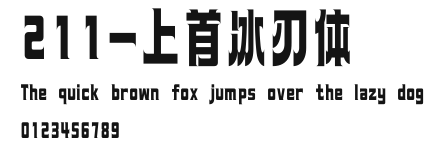
• Font Name: 211-上首冰刃体
• Full Font Name: 211-上首冰刃体
• Manufacturer: 上首造字
About 211-上首冰刃体.ttf
211-上首冰刃体.ttf is a modern, elegant sans-serif font designed for ultimate readability and visual harmony. Perfect for branding, headlines, web design, and print materials.